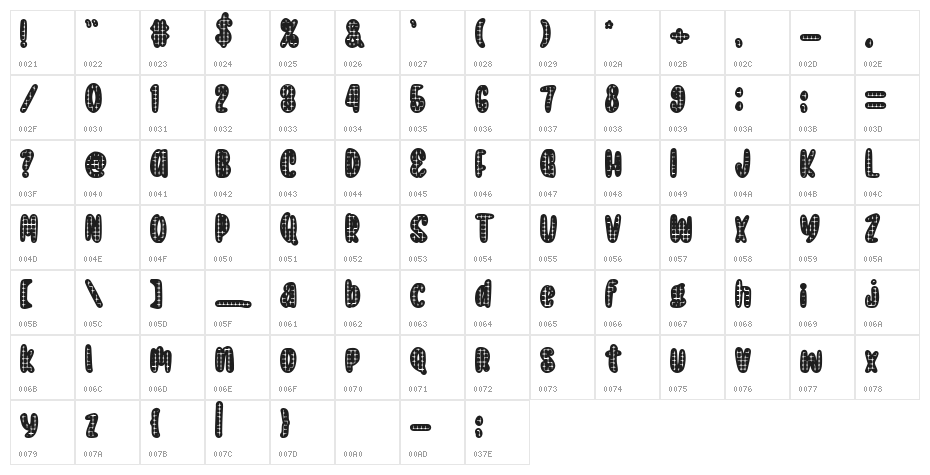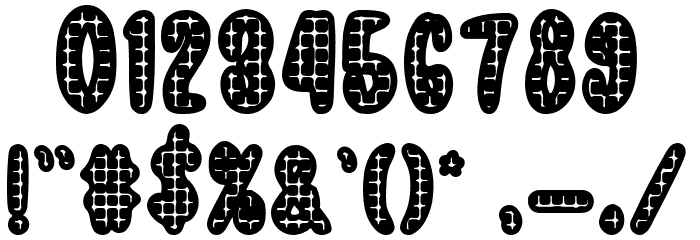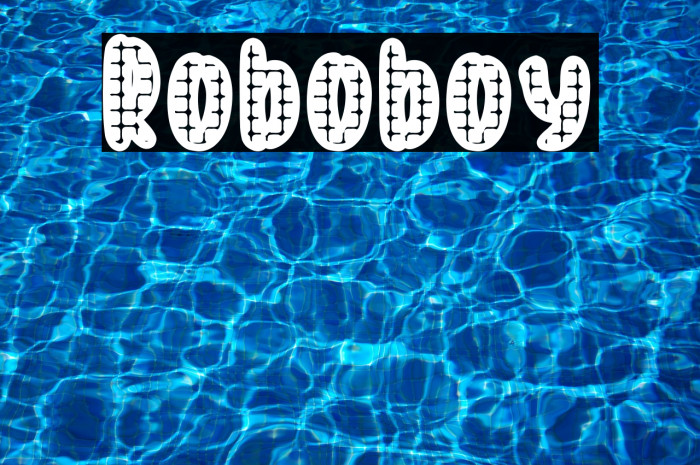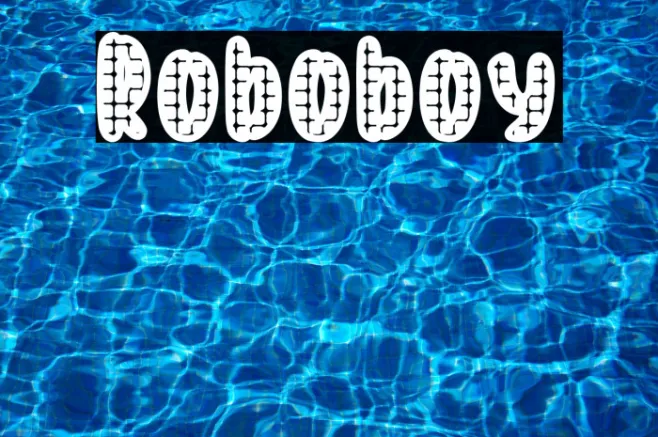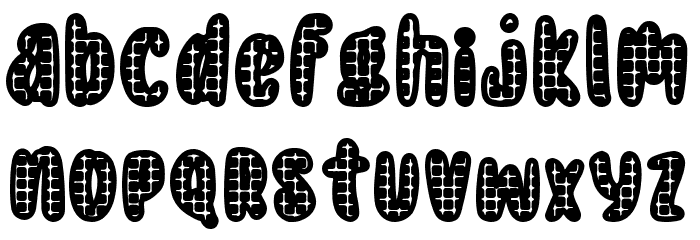
Roboboy Font
Roboboy Description
This font features a playful, robotic design with a bold, rounded appearance. Each character is filled with a pattern resembling stitches or circuitry, giving it a unique, tech-inspired look. The letters are uniformly bold, with a consistent width and a slightly condensed form. The characters maintain a whimsical and futuristic style, making them stand out with their distinctive pattern. The numbers and special characters follow the same design principles, ensuring a cohesive appearance across all elements. This font is ideal for projects that require a modern, playful, and tech-oriented aesthetic.
| Overall Style | Modern, Playful |
| Proposed Projects | Ideal for tech-themed posters, children's book covers, video game graphics, and playful branding projects. |